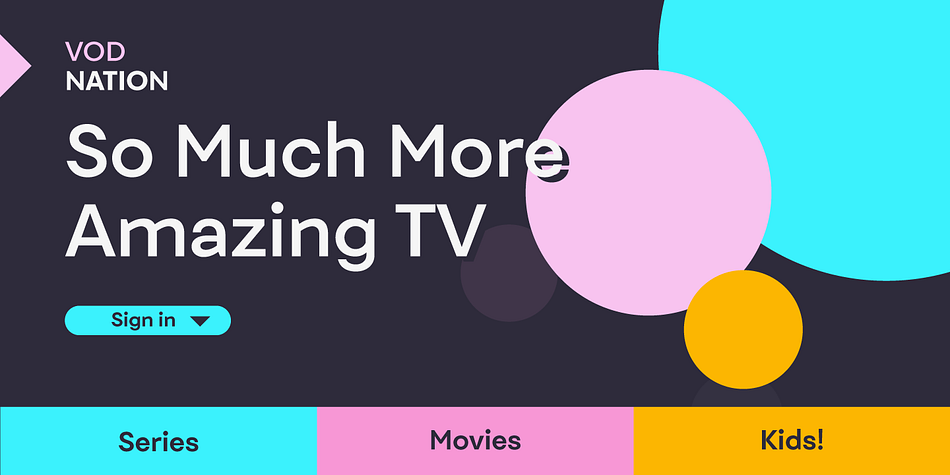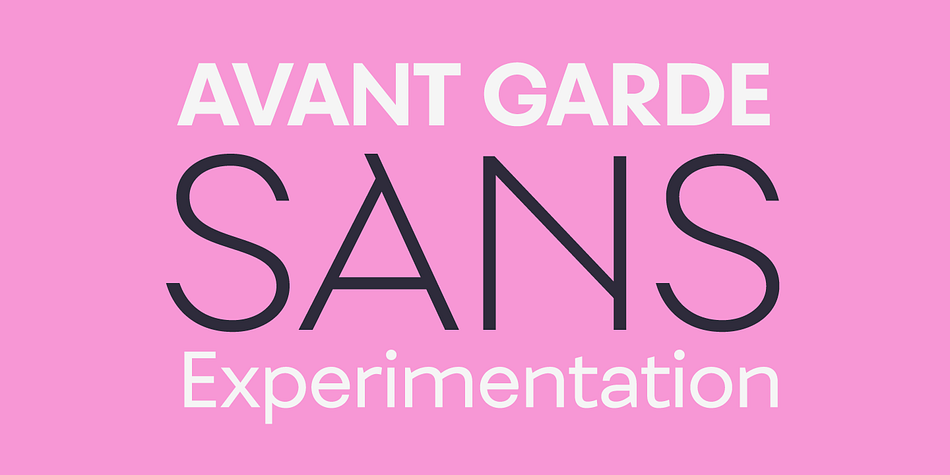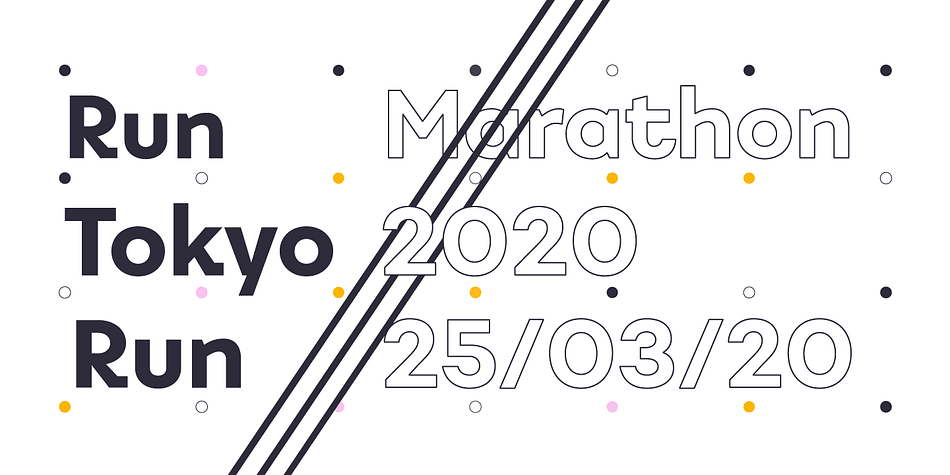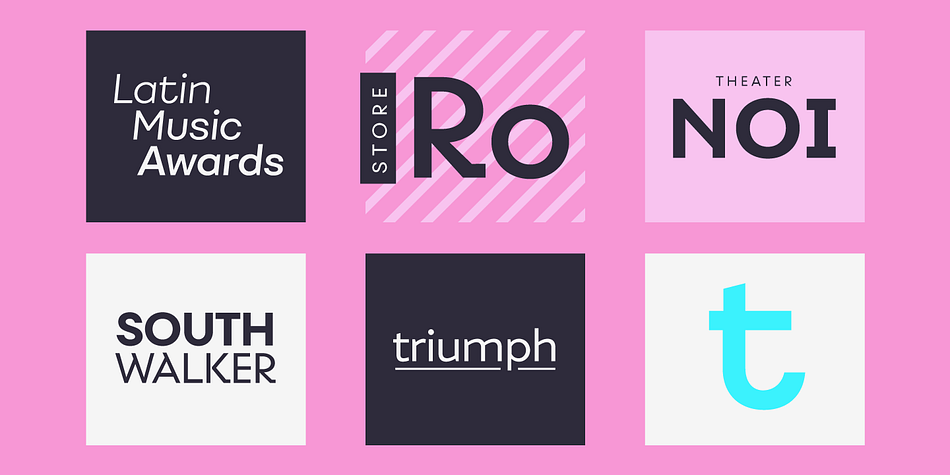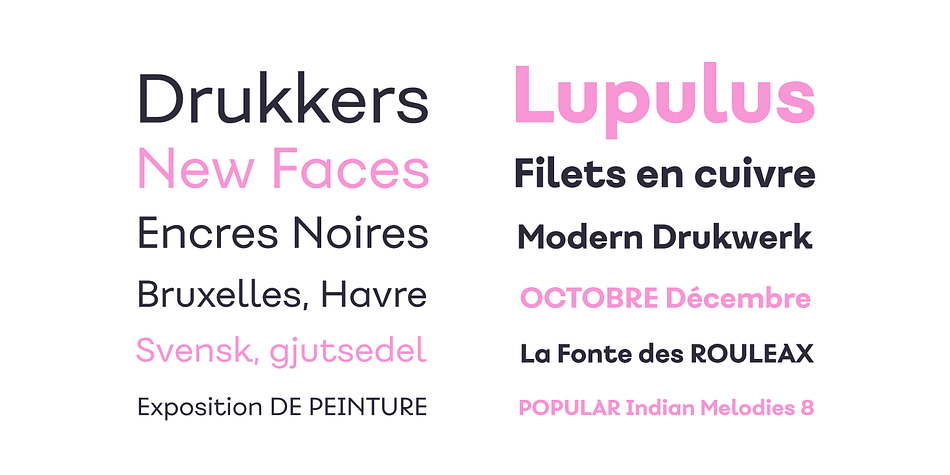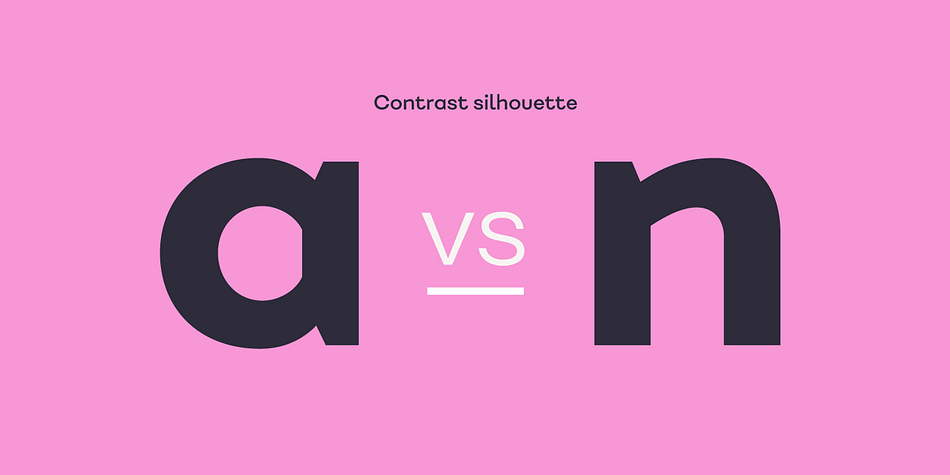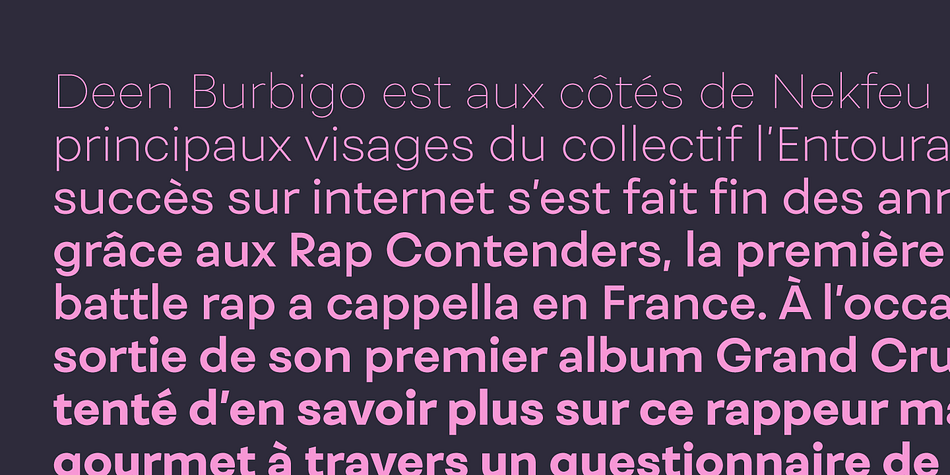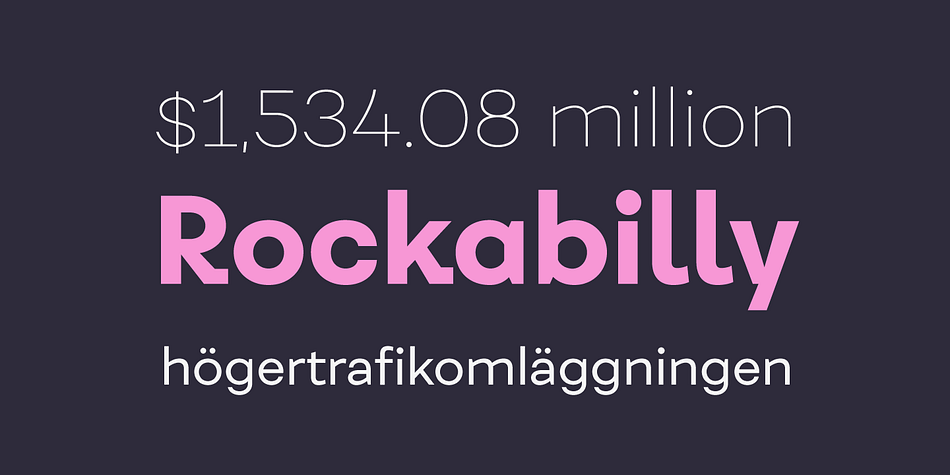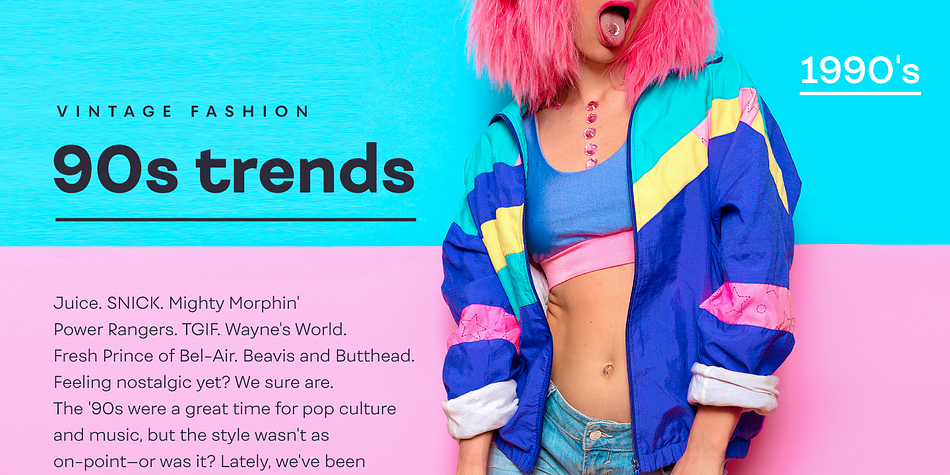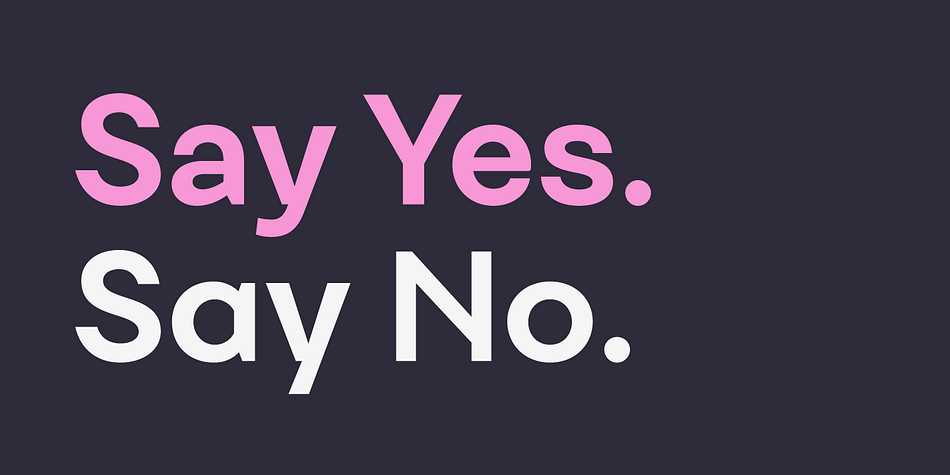
Fibra is a sans serif font family. This typeface has twenty-eight styles and was published by Los Andes Type.
The font is actually not a revival of ‘Avant Garde’—by Herb Lubalin—but it takes its spirit. Fibra is a geometric sans serif, yet without the typical structural strictness of these kind of fonts, that represents experimental type design.
This can be seen in the contrast between curves and straight lines in some characters such as ’n’ and ‘h’ unlike rounded ones such as ‘a’ and ‘d’; details of some display characters (e.g. three upper terminals in ‘W’ and projection off the stem in ‘A’); and exaggerated terminal in ‘R’. All these features give Fibra a strong personality—a sans serif typeface that ‘gives you the chills’.
Fibra was specially designed for display use. The font has a very generous x-height that allows for use in corporate text, thanks to its good readability. Fibra comes with 2 subfamilies—a more ’normal’ Basic family, with a smaller amount of stylistic features, for use in subheadings or any other type of text that requires formality, and an Alt family that shows off the true potential of the font, making it the perfect choice for magazine headlines, posters and logotypes.